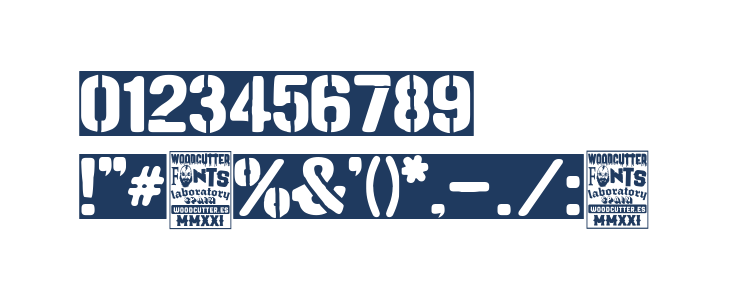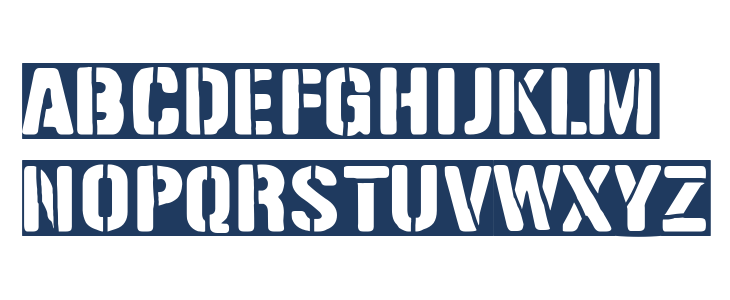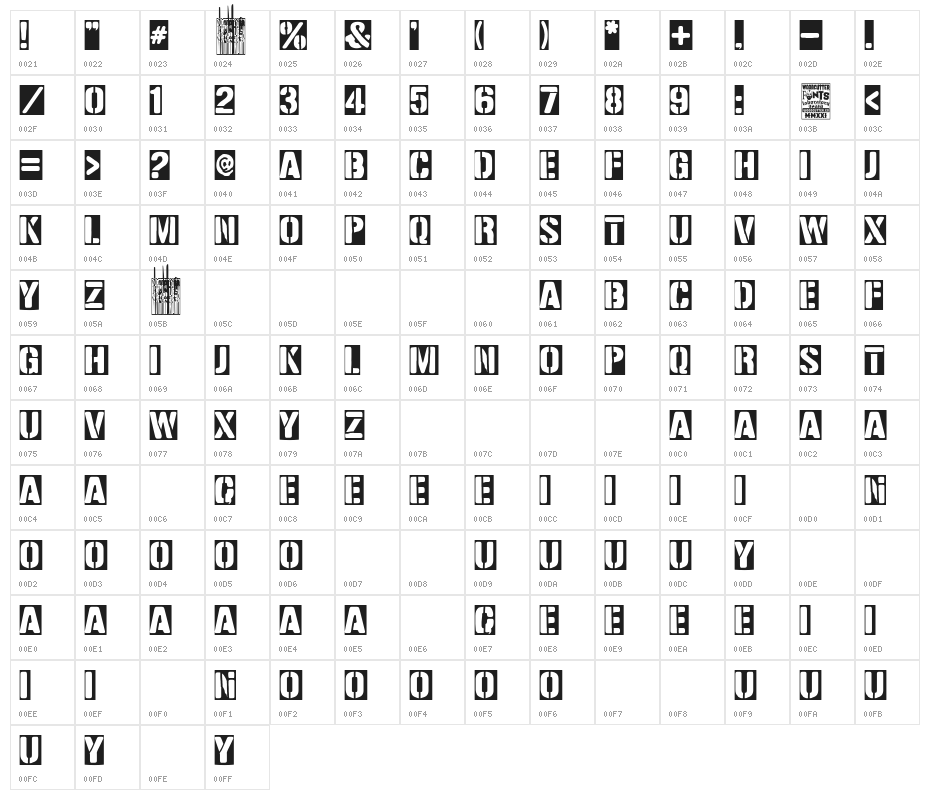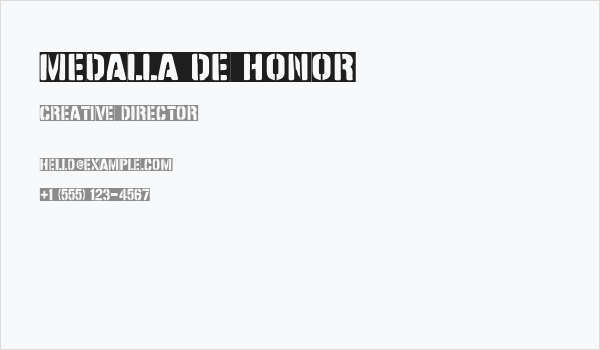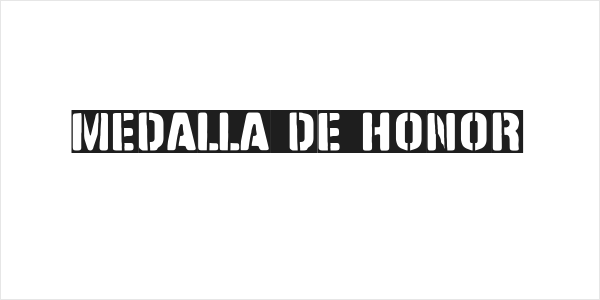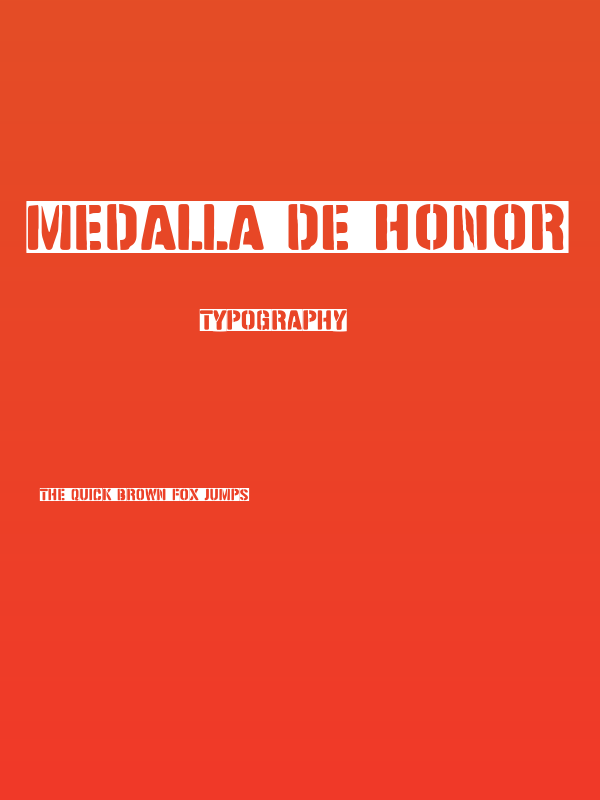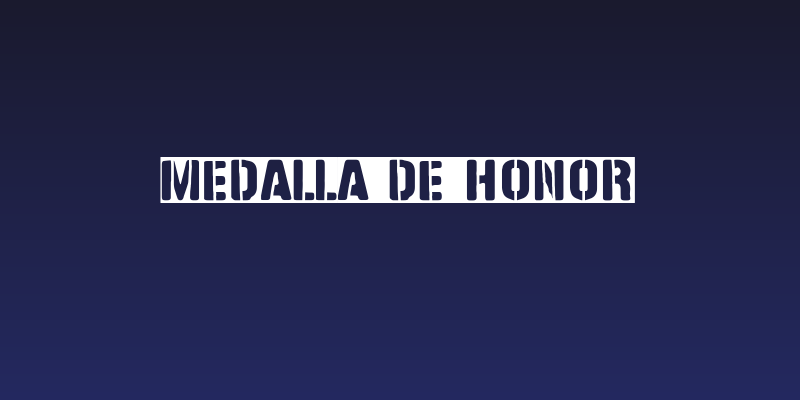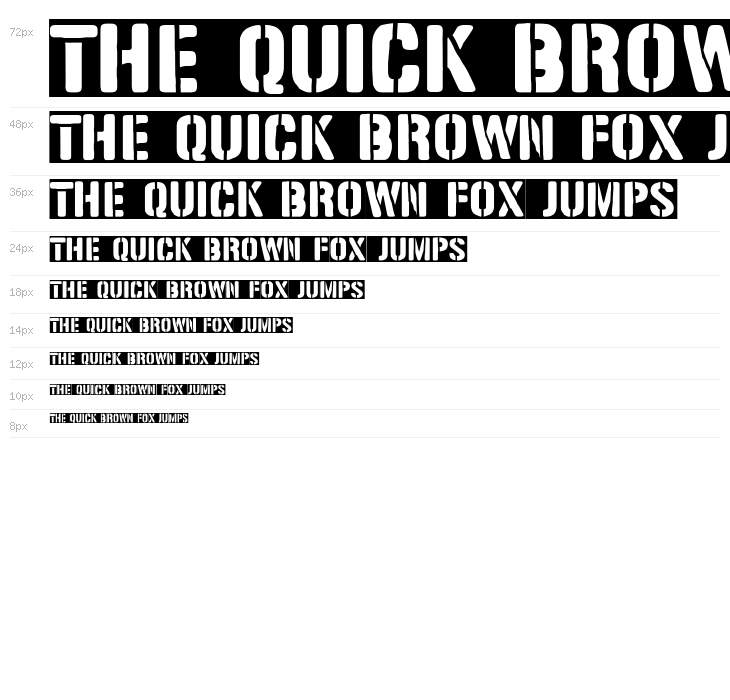
Medalla de Honor Font
Medalla de Honor Description
A bold, stencil-style display font with geometric, blocky letterforms and distinct breaks in the strokes, evoking a military or industrial aesthetic. The characters are uppercase only, with uniform stroke thickness and high legibility, suitable for impactful visual communication.
| Overall Style | Industrial, Military, Decorative |
| Use Case | Headlines, Posters, Signage, Logos |
| Proposed Projects | Posters, military-themed graphics, packaging, signage, branding, event promotions. |